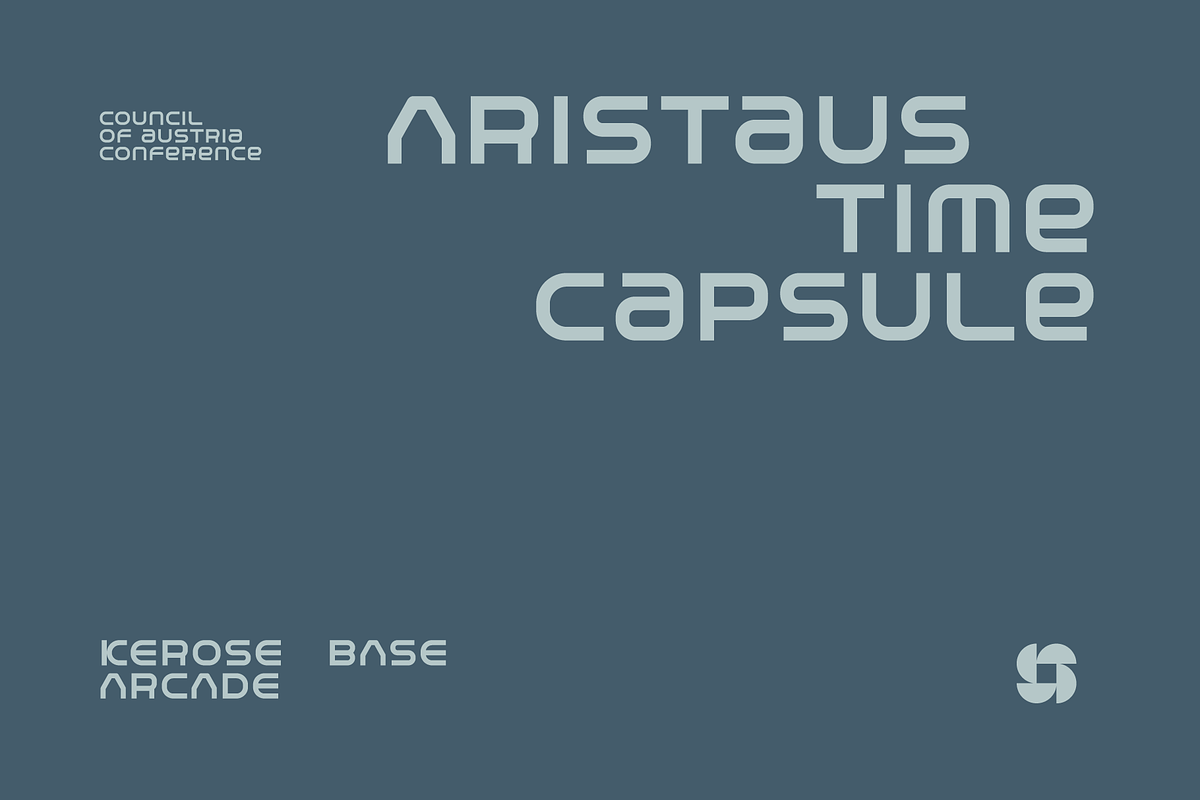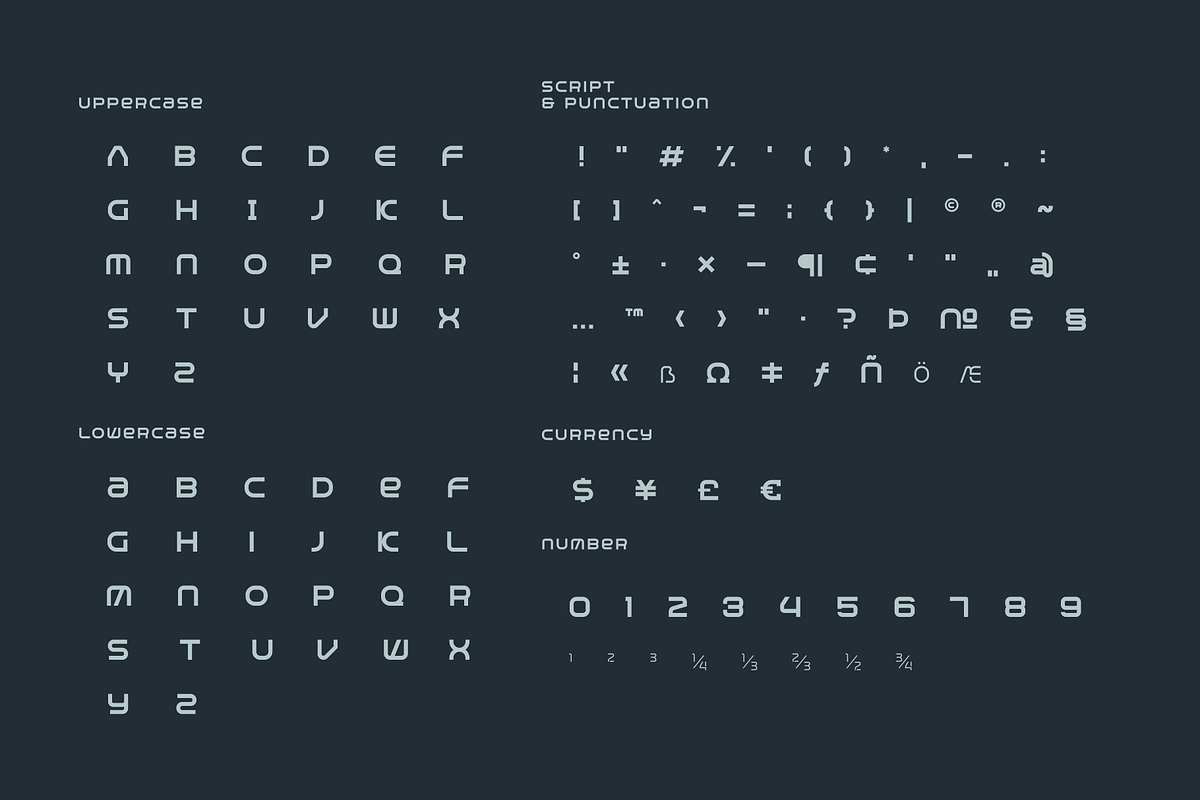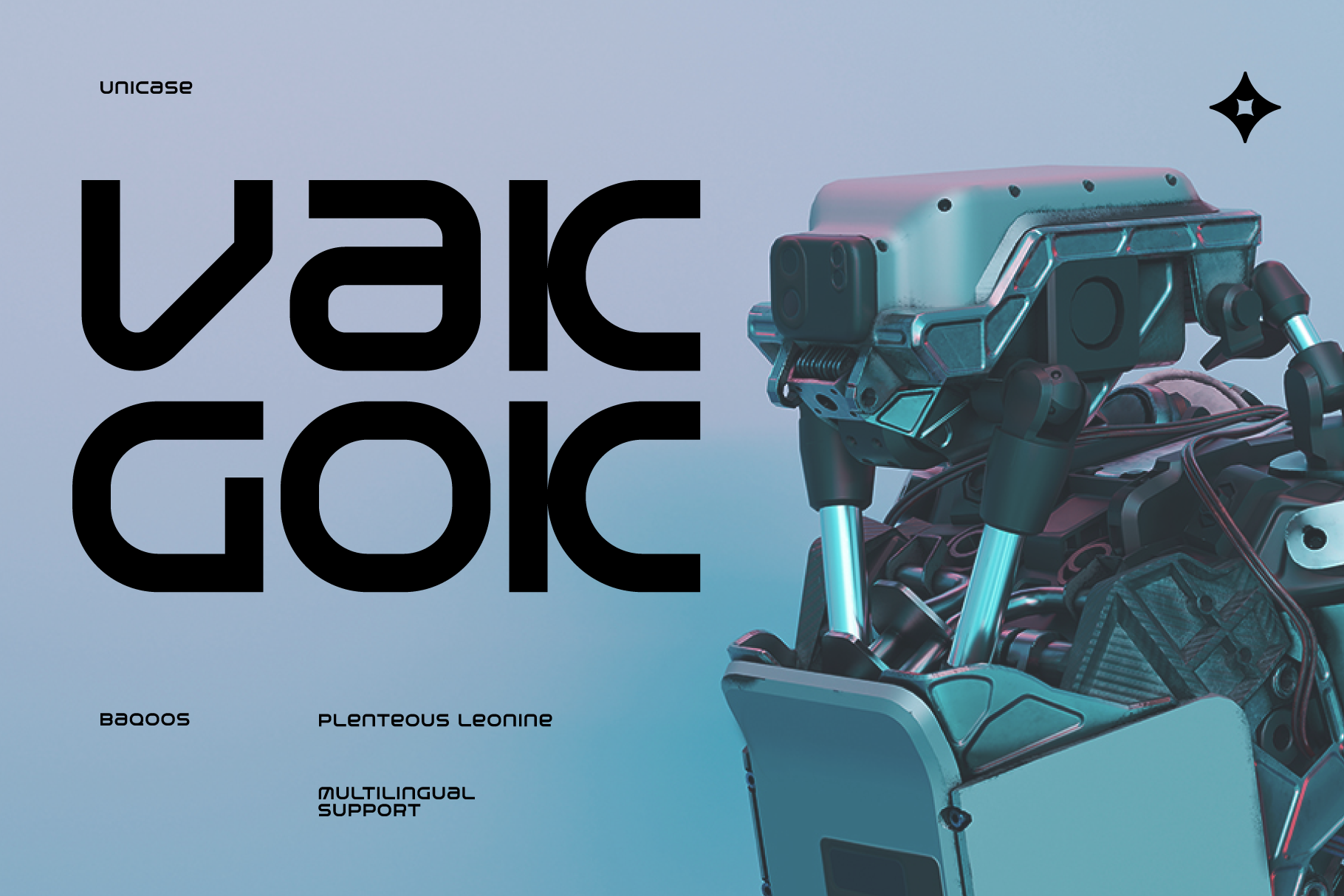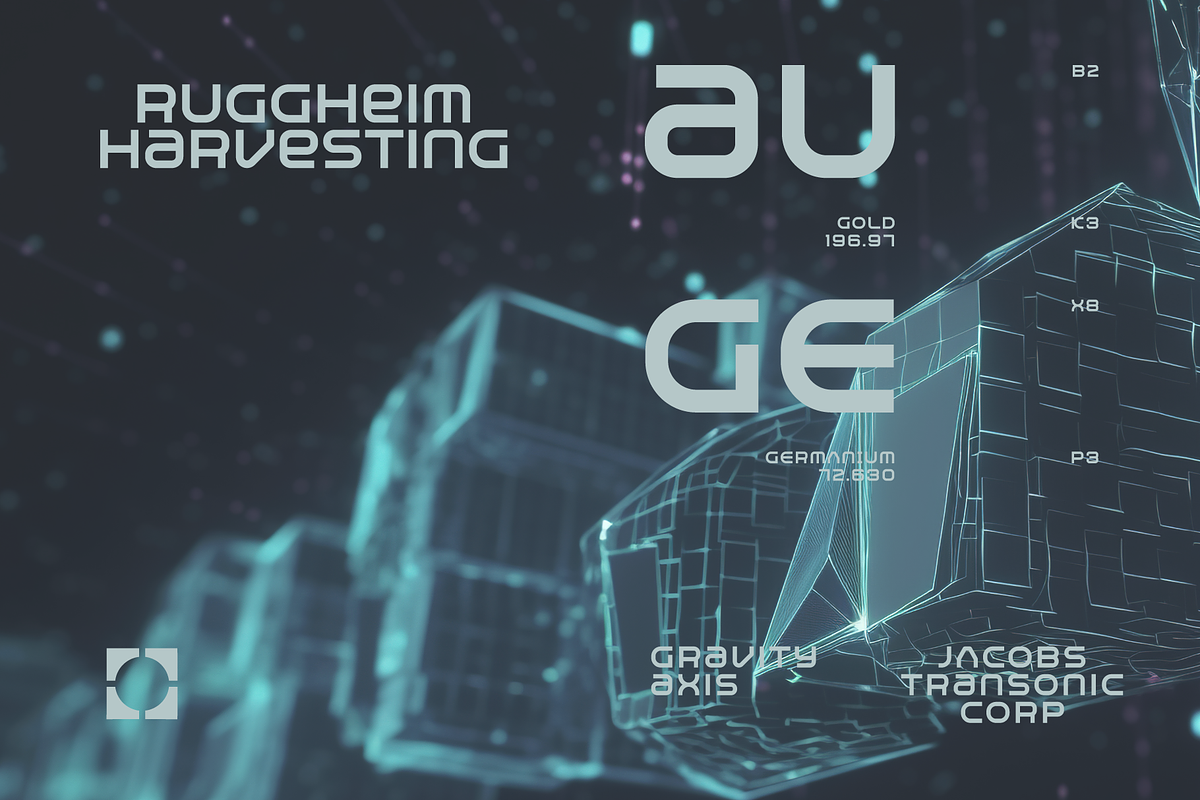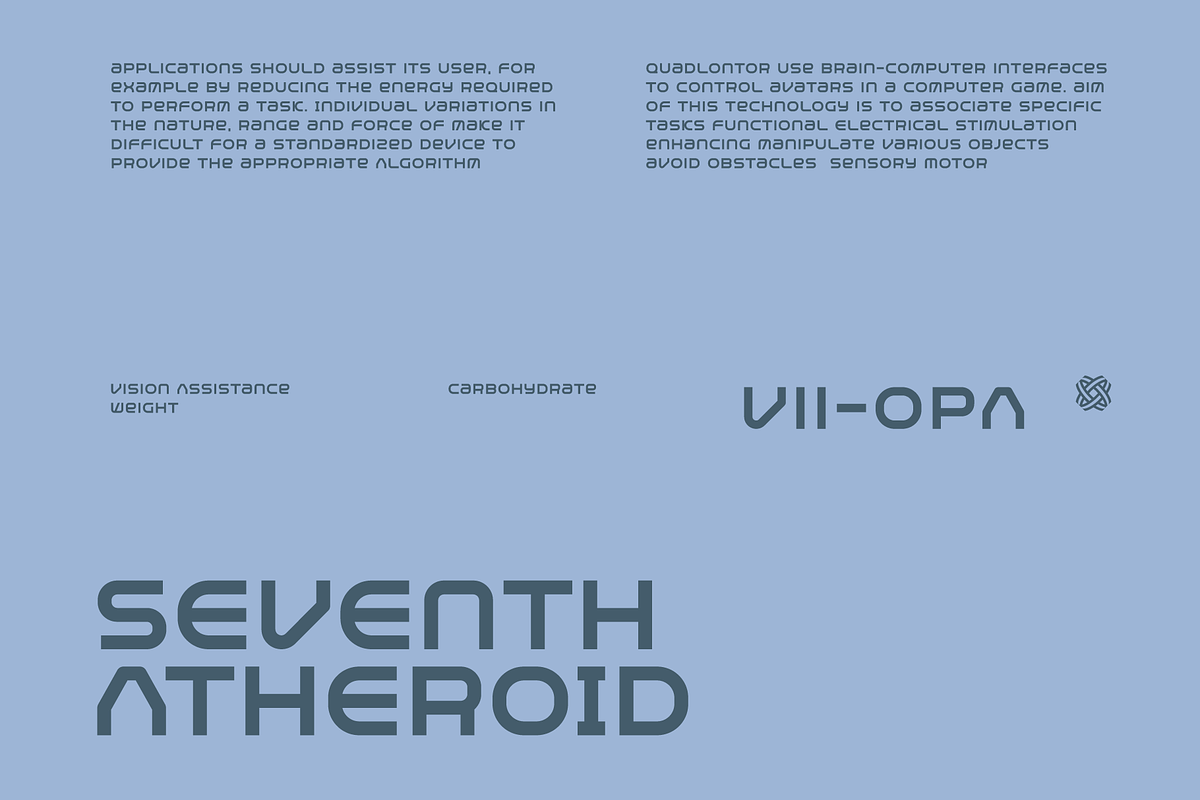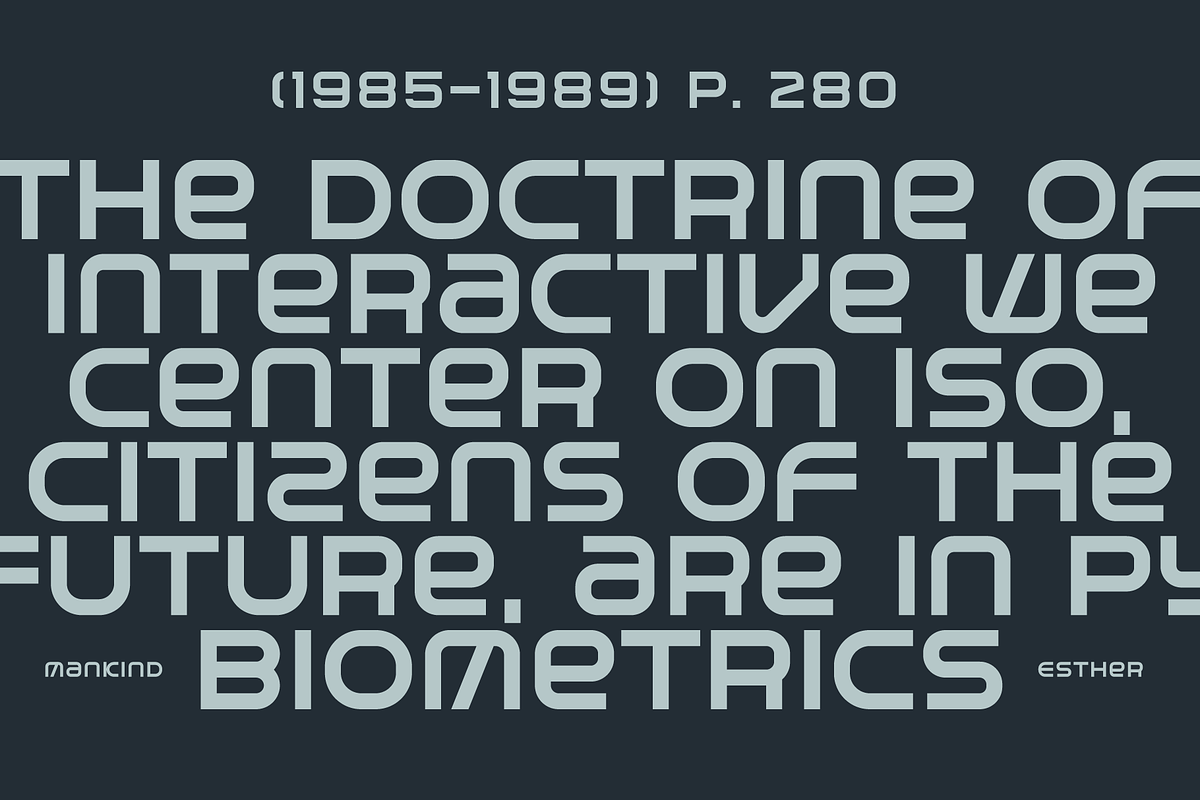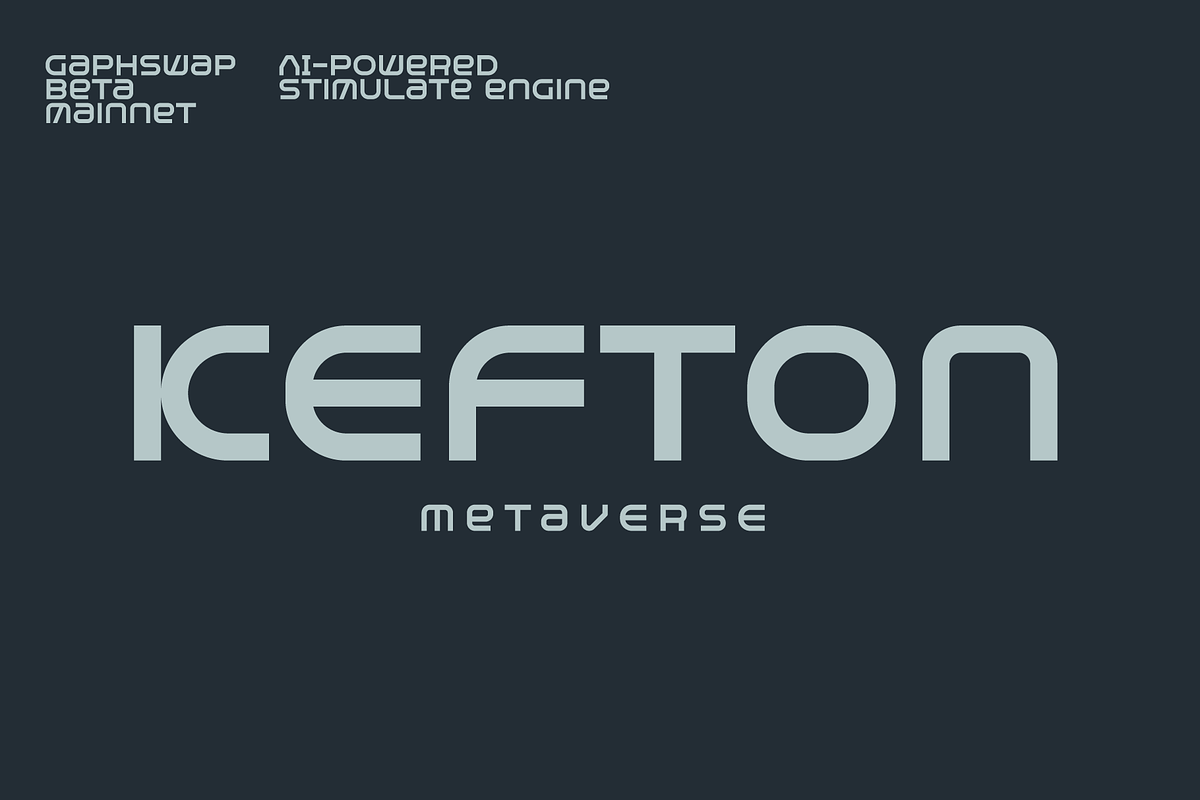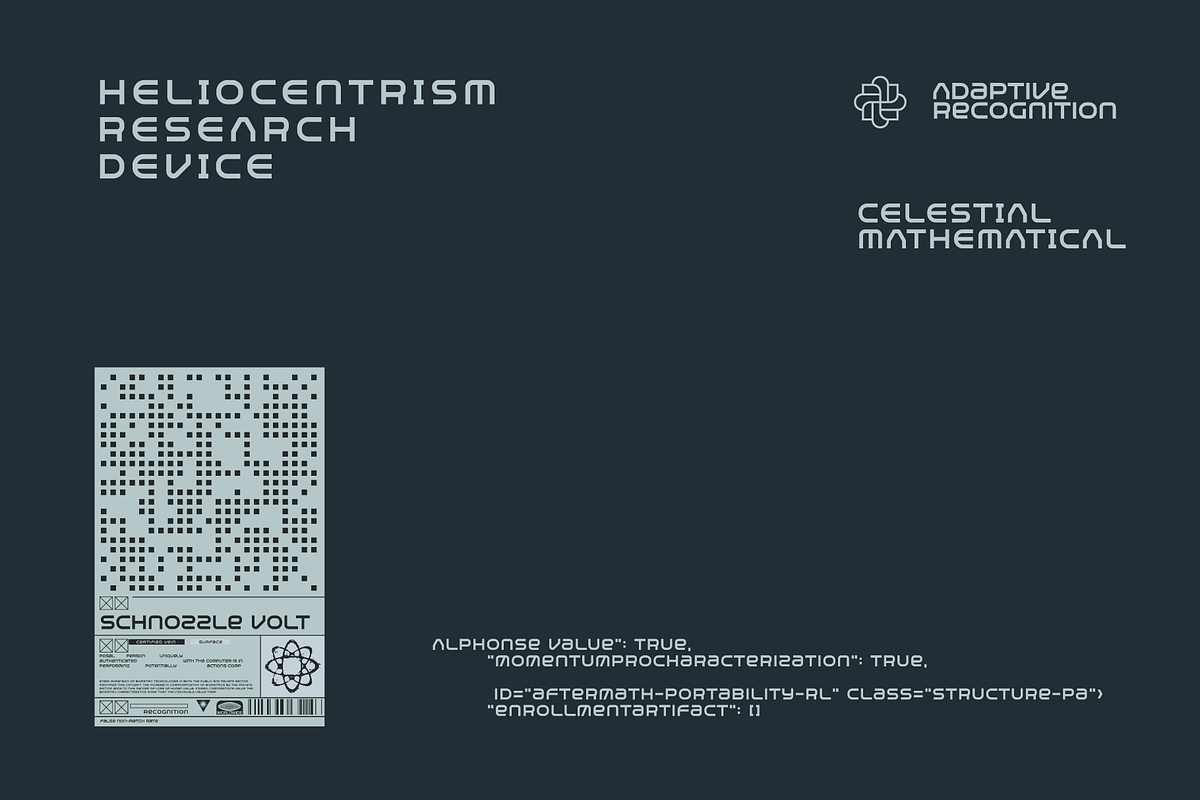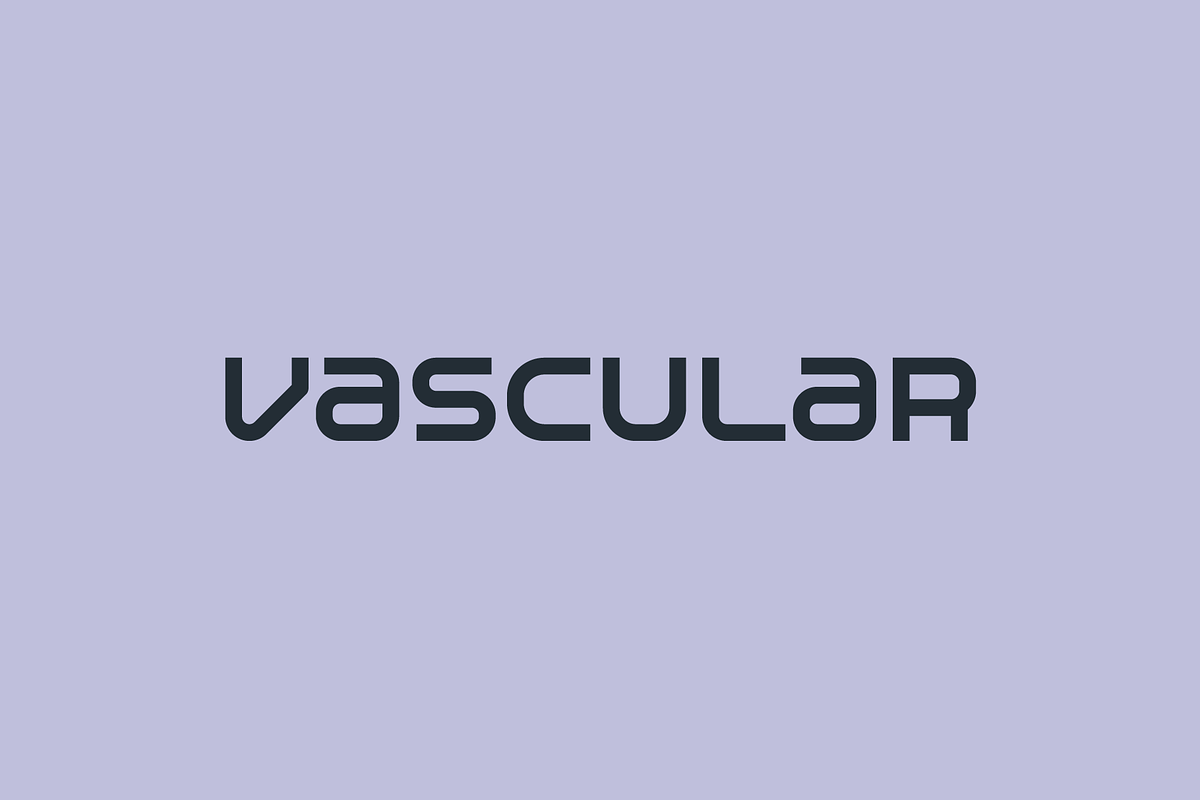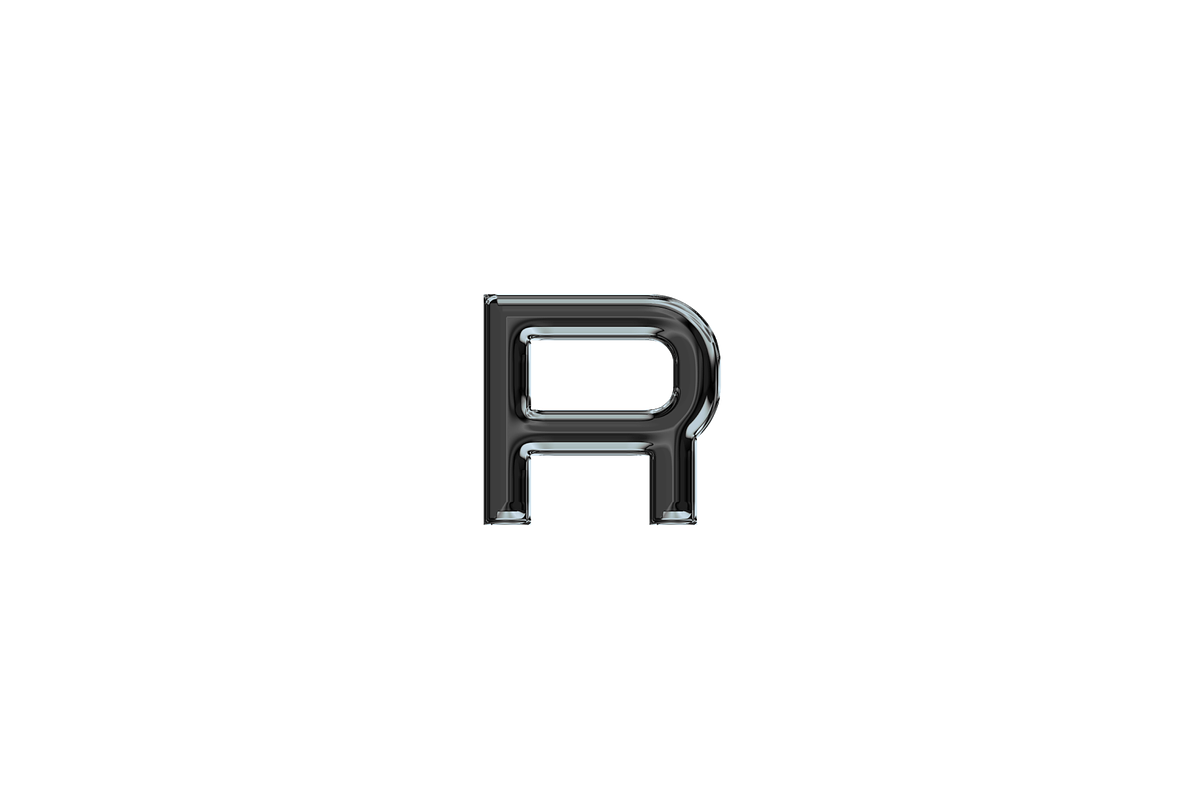
Vakgok Font
Vakgok is an plenteous leonine unicase typeface apt for headline, editorial, branding, packaging, printed materials and typographic applications. 220+ glyphs including punctuation and numerical.